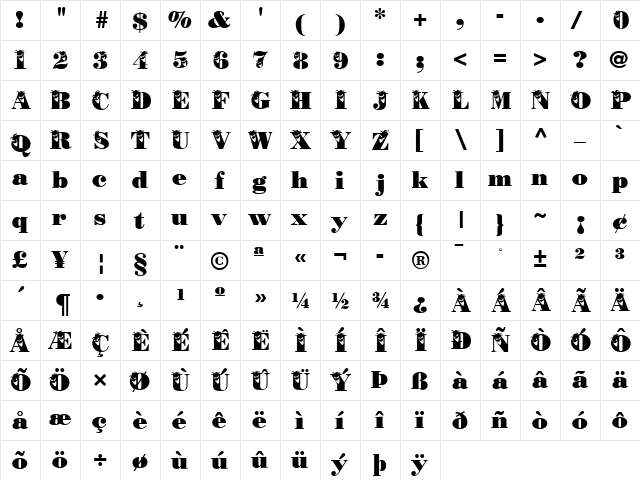
MaskedMenace Regular
Design Context for MaskedMenace Typeface
MaskedMenace is a composed and adaptable typeface that performs quietly and consistently across a wide range of design contexts.